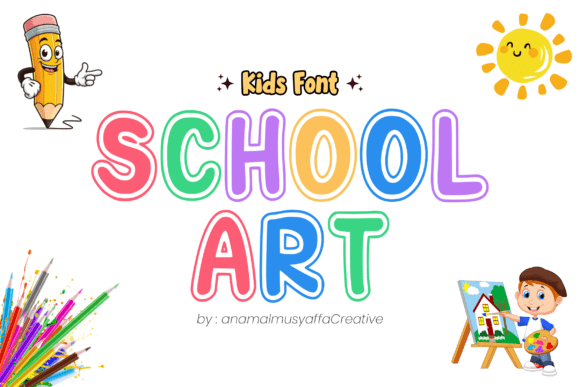
The Ultimate Guide to Artschool Regular Font: A Designer’s New Best Friend
I’ll never forget the time I was working on a project for a client’s children’s book. I had the illustrations, the story, and the layout all sorted out, but I was stuck on one thing: finding the perfect font. The client’s request was simple – they wanted something playful, modern, and fun. I scoured the internet, tried out dozens of fonts, but nothing seemed quite right. That was until I stumbled upon the Artschool Regular Font. ✨
It was love at first sight! The Artschool font is a captivating and contemporary design with a playful edge that’s perfect for a wide range of creative projects. In this article, I’ll share my experience with the Artschool Regular Font, its features, and how to get the most out of it.
- ✨ Playful and modern design: The Artschool font has a unique and delightful feel to it, making it perfect for projects that require a bit of whimsy.
- ✅ Ease of use: This font is effortless to implement, even for those who are new to design.
- 💻 Versatility: It complements sublimation designs flawlessly, whether it’s apparel, everyday items, or animation and comic titles.
While the Artschool Regular Font is an excellent choice, there are a few things to keep in mind: ⚠️
- 🤔 Limited use in formal contexts: Due to its playful nature, this font may not be suitable for formal or professional projects.
- ⚠️ Glyph compatibility: Some glyphs or special characters may not work well with certain software or platforms.
The Artschool Regular Font was designed with the intention of creating a playful, modern font that’s perfect for creative projects. The designer aimed to craft a font that’s both fun and elegant, making it suitable for a wide range of applications.
Q: What type of projects is the Artschool Regular Font best suited for?
A: The Artschool Regular Font is perfect for creative projects, such as children’s book titles, animation, comic books, apparel, and everyday items like mugs and tote bags.